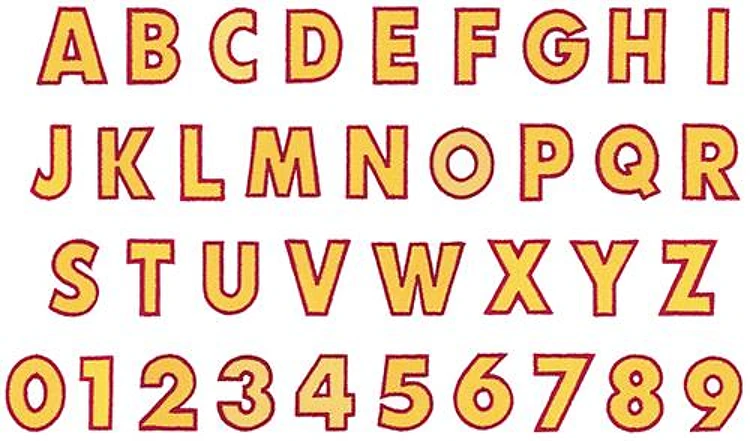
Great Notions is happy to present 2 Color Alphabet machine embroidery font which has Bold block machine embroidery font showcases a vibrant two-color design with yellow letters outlined in red, ideal for personalized pillows and bags. Available in CND, DST, EXP and other Home Format options. included. If you would like to view more embroidery fonts and alphabets please search our embroidery fonts page.